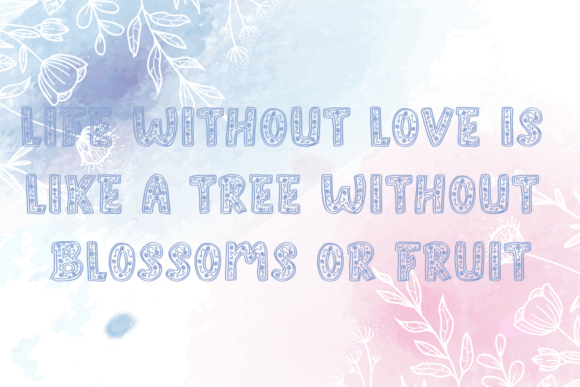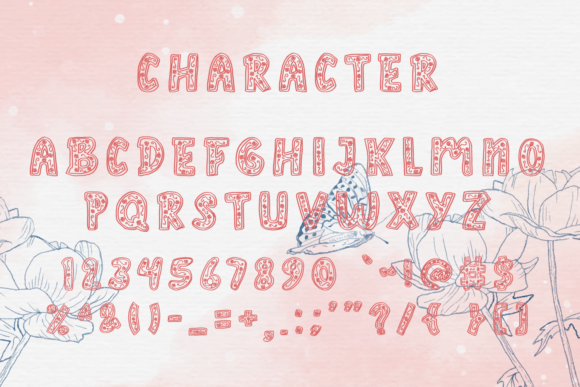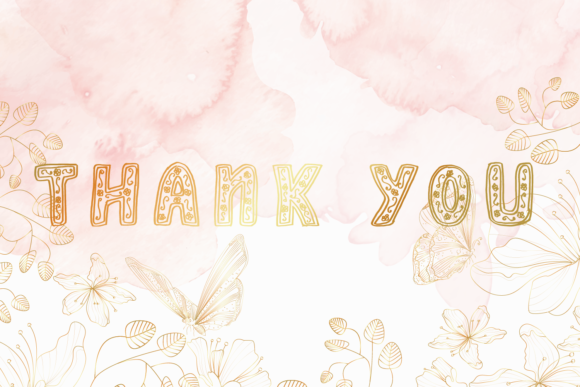
Introduction to Flower Soon Font
As a designer, you’ve probably found yourself staring at a blank canvas, waiting for that perfect spark of creativity to ignite your next project. For many of us, it’s the little details that can make all the difference. A well-placed flourish, a delicate curve, or a whimsical touch can elevate even the simplest design into something truly special.
That’s where the Flower Soon Font comes in – a charming and endearing decorative font that’s sure to bring a smile to your face and a touch of magic to your creative project. Whether you’re working on a cartoon-inspired design, a children’s game, or simply a personal project that requires a lovely touch, this font is an absolute must-have in your design arsenal.
Key Features of Flower Soon Font
- High-quality design: Flower Soon Font is a beautifully crafted font perfect for creative projects that require a touch of elegance and sophistication.
- Unique floral design: The font’s distinctive floral design elements make it a standout choice for creative projects that require a touch of whimsy and charm.
Honest Review: Flower Soon Font
I recently came across the Flower Soon Font, and I must say it’s a great addition to my design resource library. This free download has been a game-changer for my creative projects, and I’m excited to share my honest review with you.
- Unique and delicate design: The Flower Soon Font has a beautiful, hand-drawn feel that adds a touch of elegance to any project.
- Limited character set: While the font is perfect for headings and titles, it may not be suitable for large blocks of text.
- No bold or italic weights: This could be a limitation for projects that require emphasis on certain text.
Overall, I’m impressed with the Flower Soon Font. It’s a high-quality design resource that’s perfect for creative projects. While it may have some limitations, its unique design and high-quality vector graphics make it a valuable addition to my library.
The Flower Soon Font is a high-quality design resource perfect for creative projects that require a unique and elegant touch. With a transparent background and free download option, this font is an excellent choice for designers and artists looking to add a personal touch to their work.
Common Use Cases for Flower Soon Font
The Flower Soon Font is perfect for a variety of creative projects, including:
1. Wedding invitations and stationery.